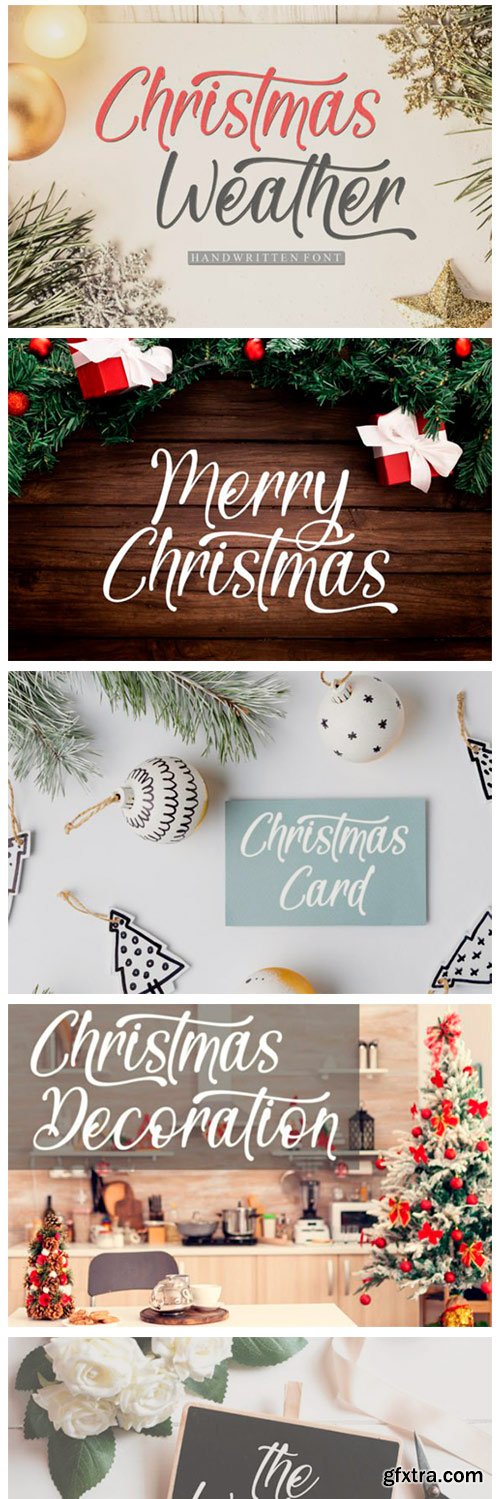
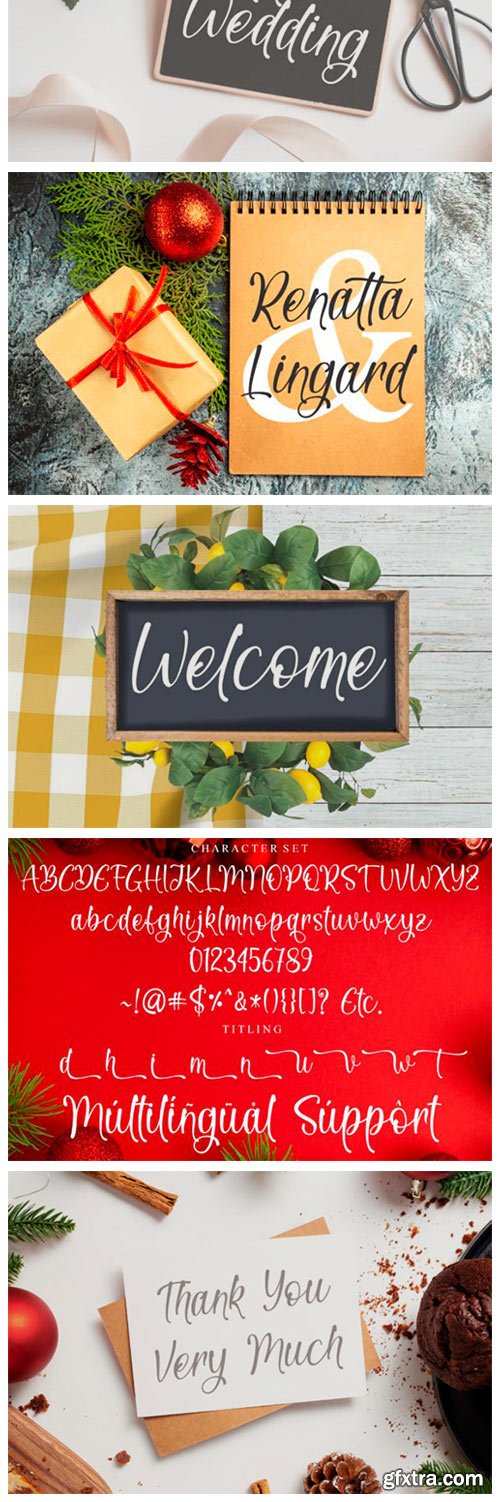
Christmas Weather Font
Christmas Weather is a stylish and incredibly elegant script font. It looks stunning on wedding invitations, thank you cards, quotes, greeting cards, logos, business cards and every other design which needs a handwritten touch.
Houstone - expanded / extended Art Deco Sans Serif - Retro Vintage Architectural Historical Display Font
Rumble Born is a retro bold script which will bring you back to 60s feel but still with fun and playful look. This font perfectly made to be applied especially in logo, and the other various formal forms such as invitations, labels, logos, magazines, books, greeting / wedding cards, packaging, fashion, make up, stationery, novels, labels or any type of advertising purpose.
Nosgoco finds its inspiration in a modern and slightly contemporary type of form. The slab serif font family, Nosgoco consists of solid fonts and outlines and an outline style that lends an elegant touch to a light design. Nosgoco has rounded corners and dynamic breaks in each letter, besides that there is also an outline version that gives a flexible feel to any type of design. This font looks great on looks and outfits or on packaging designs, take it and use your creativity.
Atnombra is a vintage decorative typeface. Great for creating eye-catching headlines and applicable for any type of graphic design web, print, motion graphics, perfect for t-shirts and other items like logos, poster/ flyer, branding, packaging, etc.
Tenstars is a modern script marker font. With regular marker stroke, fun character with some of ligatures. To give you an extra creative work. Tenstars font support multilingual more than 100+ language. This font is good for logo design, Social media, Movie Titles, Books Titles, a short text even a long text letter and good for your secondary text font with sans or serif. Make a stunning work with Tenstars font.